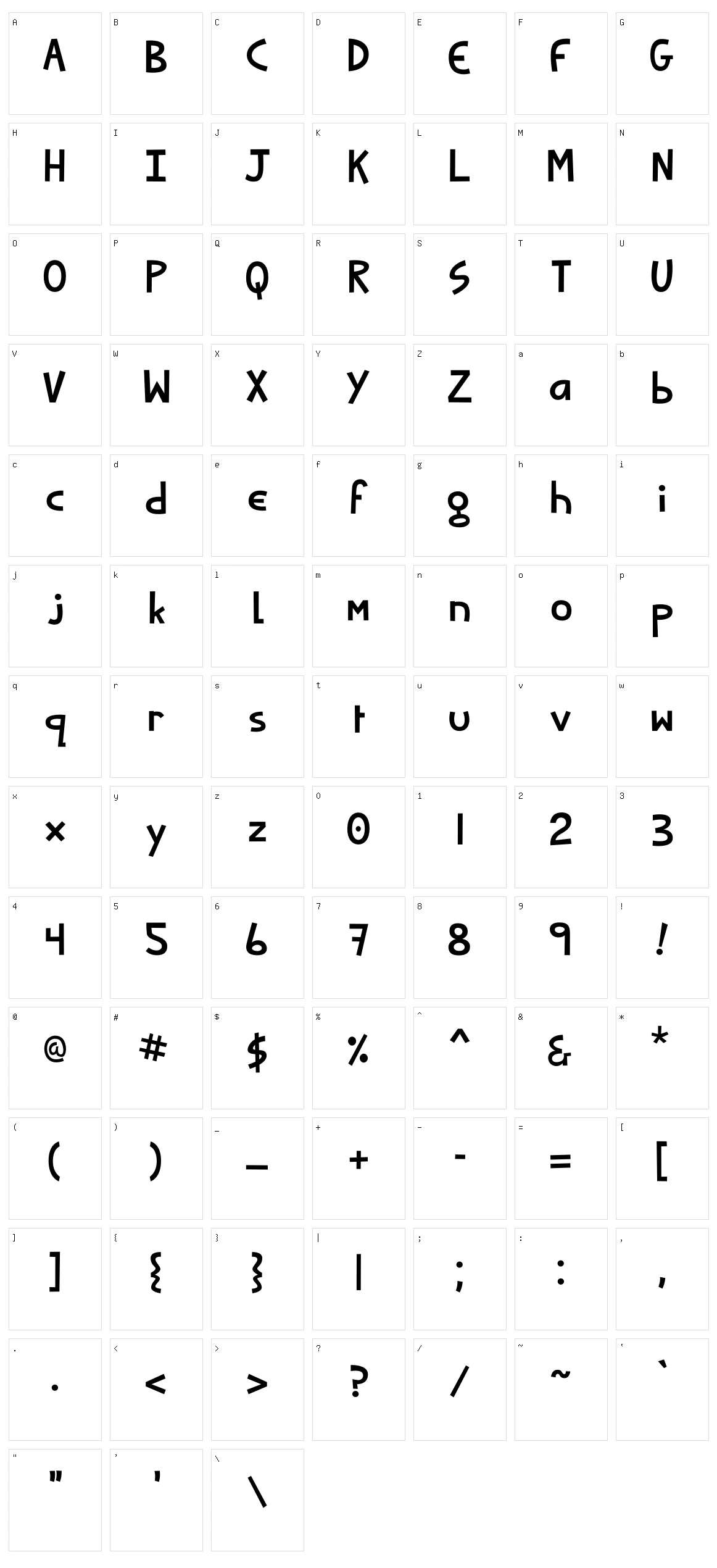
The free font Xugglybug is carefully designed by Liam Butler, showcasing a thoughtful balance of creativity and usability and falls under the Cartoon font style. When you download the ZIP file, it contains only 6.89 KB of font files, making it lightweight and quick to download. Please review the license details below to understand permitted usage and distribution rights. If license information is not available, we recommend using this font for personal projects only or contacting the author directly for commercial usage permissions.